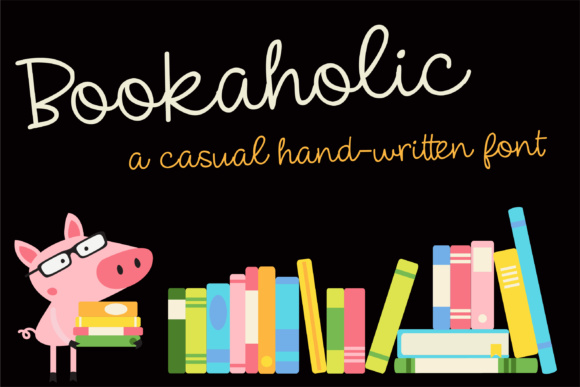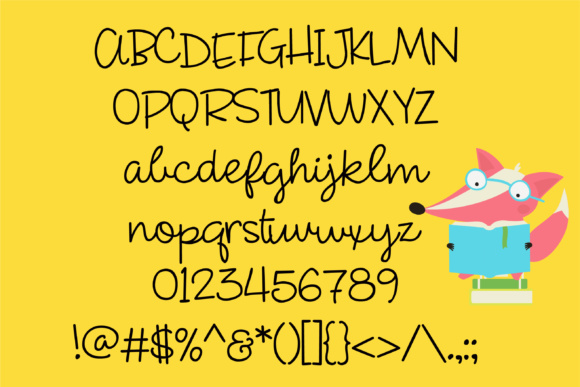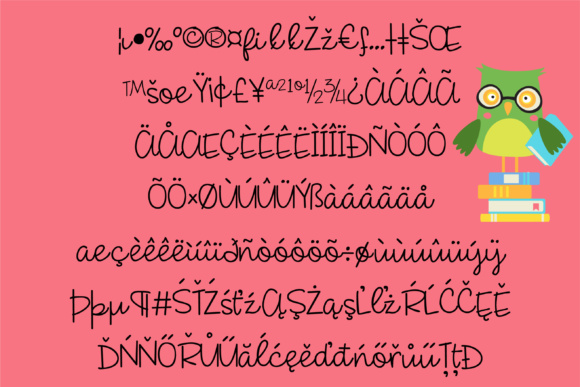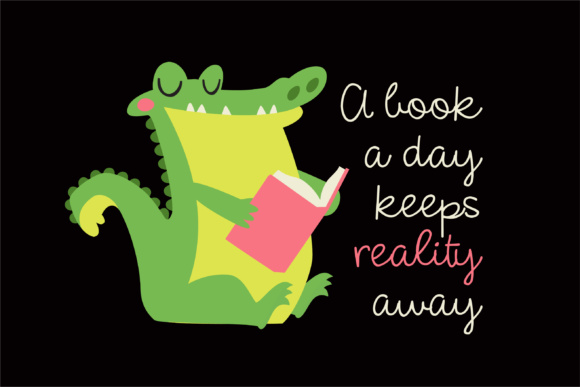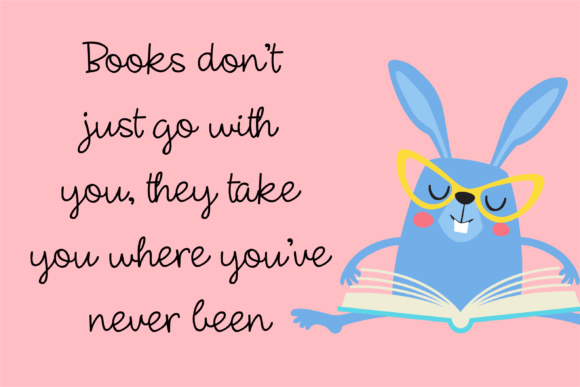
HomeScript FontsZP Bookaholic Font Script Fonts ZP Bookaholic Font FacebookXPinterestWhatsApp ZP Bookaholic Font Poster 2 ZP Bookaholic Font Poster 3 ZP Bookaholic Font Poster 4 ZP Bookaholic Font Poster 5 About ZP Bookaholic Font This cute hand-written cursive script has a fun and casual feel. DOWNLOAD NOW People also explored Love Whisper Font Mandala Font Winterlust Font Holfetry Font Hawkins Park Font Seasky Font Birds Font Monitha Font Happy Christmas Font 389 0 TagsZP Bookaholic Font Previous articleZP Jack and Diane FontNext articlePN Banana Split Script Font LEAVE A REPLY Cancel reply Comment: Please enter your comment! Name:* Please enter your name here Email:* You have entered an incorrect email address! Please enter your email address here Website: Save my name, email, and website in this browser for the next time I comment. Personal Use Free Heart Personal Use Free Read more about this font Nulshock Bold Personal Use Free Read more about this font Kaysan Personal Use Free Read more about this font Eigha Personal Use Free Read more about this font BLOG Exploring Font Trends Shaping Communication in the Digital Era Fonts, like all design elements, are subject to trends. They play a crucial role in communicating a brand's personality,... Where to Buy American Fonts Online in 2024 How to Cut Any Font on Cricut: Convert a Font to SVG (Free) Fonts That Capture the Spirit of New York City